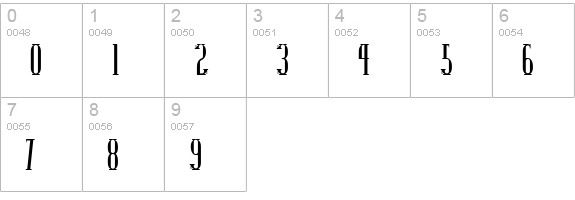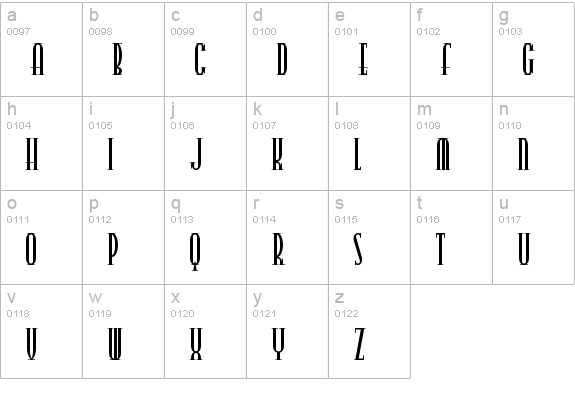
Points West NF Font Details
Points West NF is a beautifully crafted vintage font that exudes a timeless charm and elegance. With its classic serif style and intricate detailing, this font is perfect for adding a touch of sophistication to your design projects. Whether you are working on invitations, branding, or editorial designs, Points West NF will elevate your work to a whole new level. The best part? Points West NF is available for free download at FontsMarket.com. This means you can easily access this stunning font and use it in your projects without any cost. Don't miss out on the opportunity to enhance your designs with the exquisite beauty of Points West NF. Download it today and let your creativity soar!